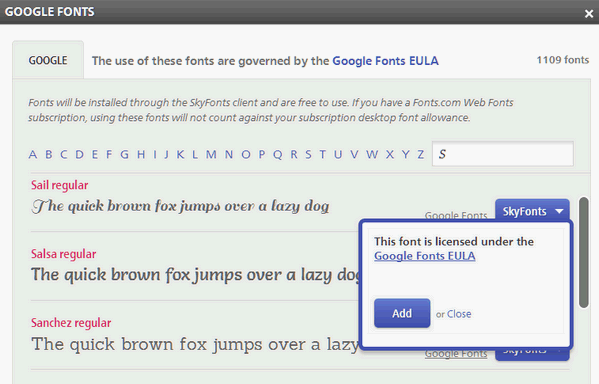
Is Google Fonts Safe
Is Google Fonts Safe. The fonts are free to use, making beautiful type accessible to anyone for any project. Roboto black & roboto mono light when in doubt, use a roboto font pairing, and you’re surely in the safe zone with style.
On Top Of That, Google Fonts Are Maintained And Delivered By Google, Which Means They’re Guaranteed To Be Safe.
Fonts are pretty safe to download. Making the web more beautiful, fast, and open through great typography And for the most part, i never mind about their rules.
And If You Use The Google Font Service, You Can Selectively Load Just The Font Variations You Need.
It is ranked in the top 20 in google fonts. It only has some minor differences that you can pick up on with a close inspection. The font files are cached for 1 year.
Google Fonts Aren’t Inherently Supported By Your Operating System, So By Definition, They Aren’t Web Safe Fonts.
You can restrict the character set if you don’t need certain characters, which will. Are google fonts web safe? It was designed with the intent of giving a clean looking font for all languages to use across the web.